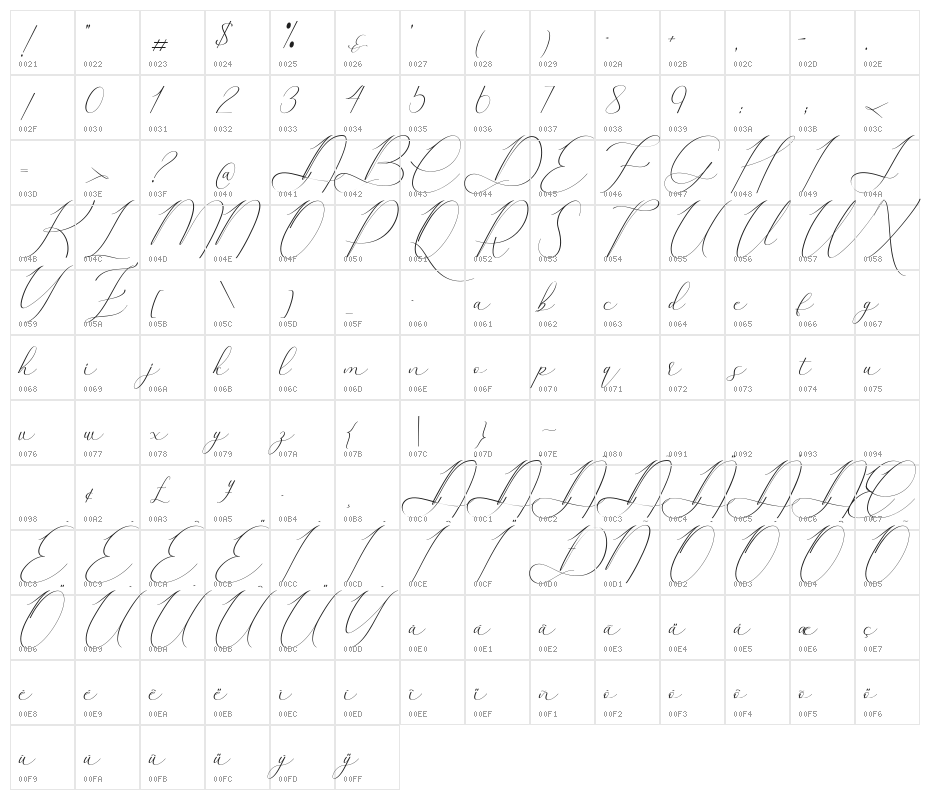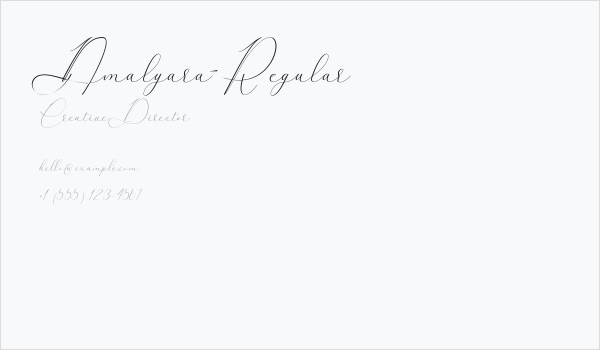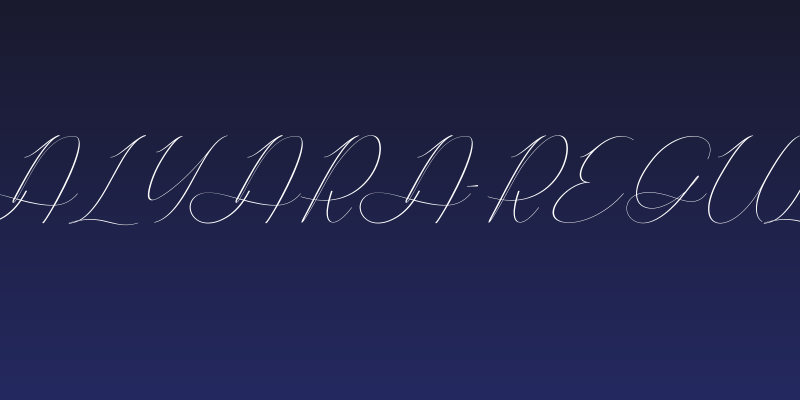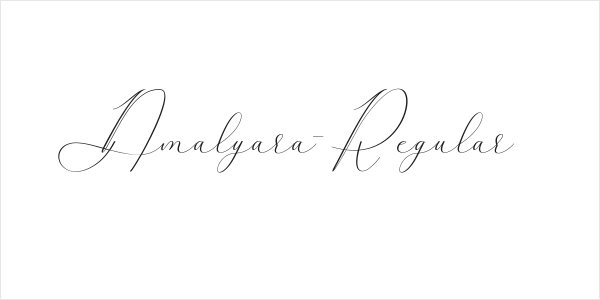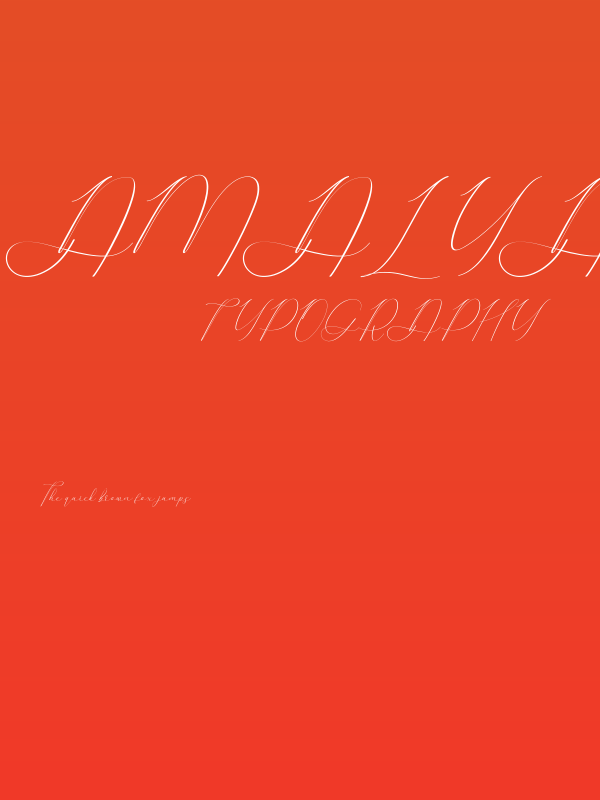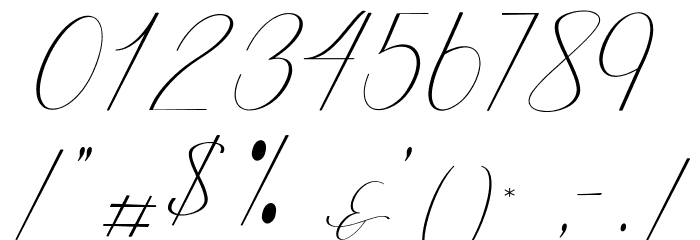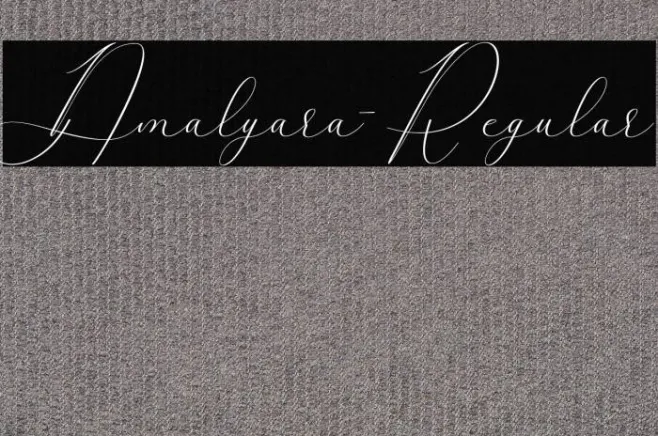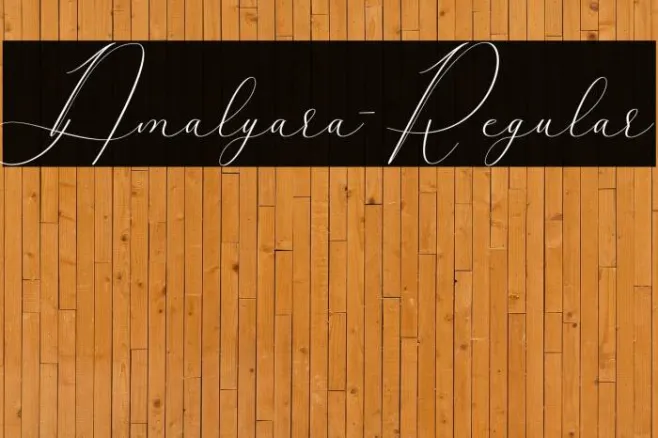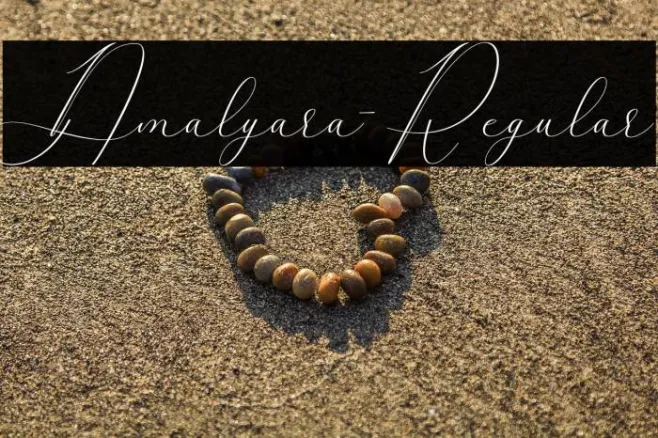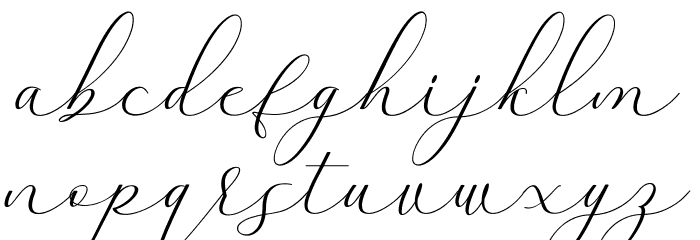
Amalyara-Regular Font
Amalyara-Regular Description
This elegant script font features flowing, interconnected letters that exude a sense of sophistication and grace. The characters are delicately crafted with thin, smooth strokes, giving it a refined and airy appearance. The uppercase letters are slightly more ornate, with gentle curves and loops, while the lowercase letters maintain a consistent flow, enhancing readability. The numerals and special characters are designed to complement the overall style, maintaining the same fluidity and elegance. This font is ideal for projects that require a touch of class and elegance.